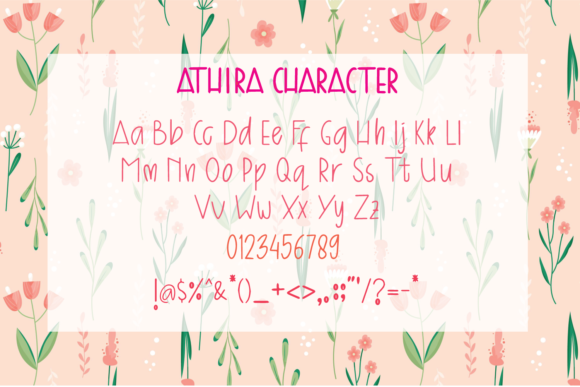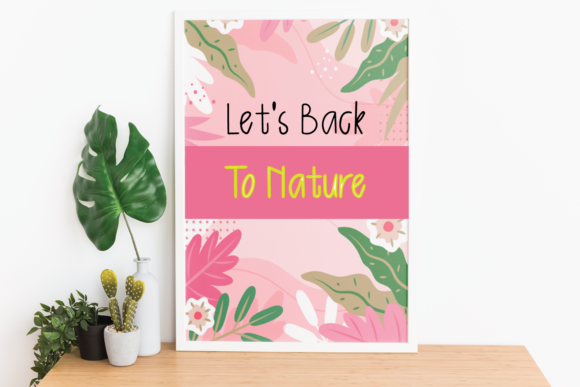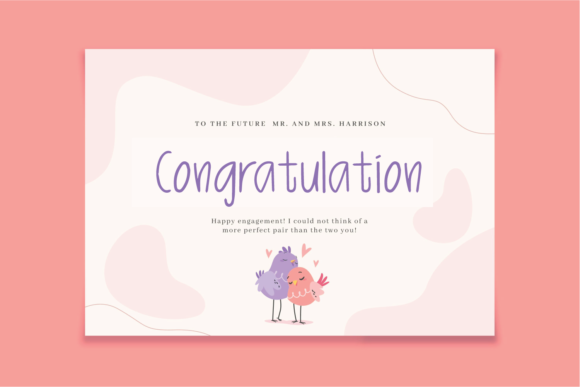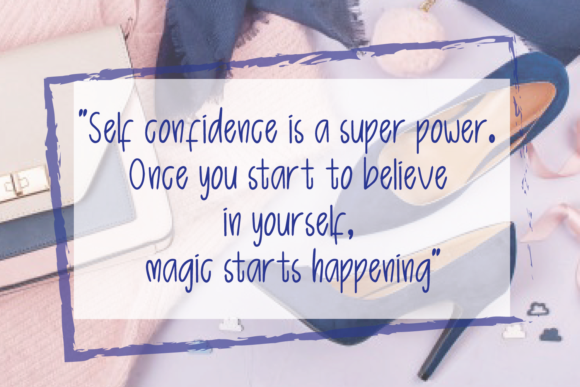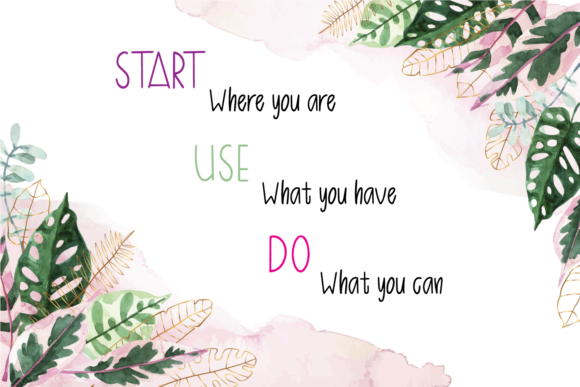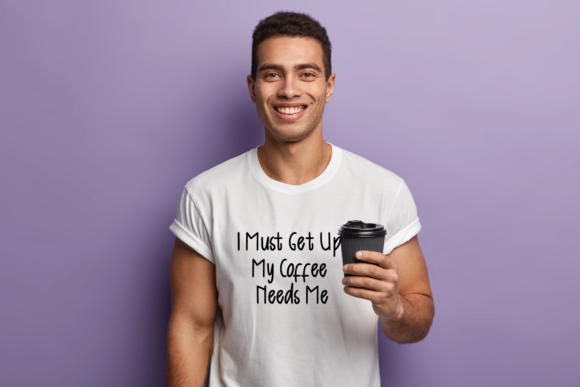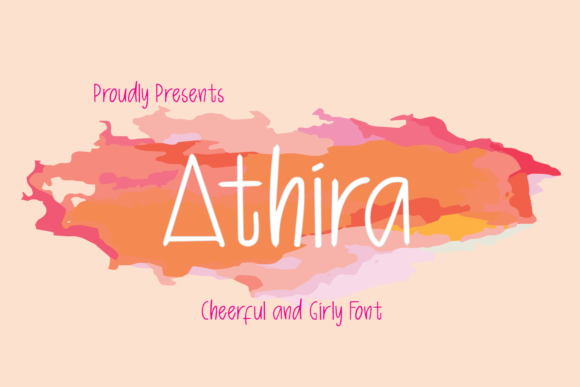
Athira Font: The Perfect Choice for Fashion Branding and Editorial Designs
Are you a designer or crafter looking for a unique and elegant font to elevate your fashion branding or editorial designs? Look no further than Athira Font! This beautiful, handwritten font is defined by its dainty curves and delicate features, making it the perfect choice for adding a touch of sophistication and style to your projects.
What is Athira Font?
Athira Font is a thin, delicate, and cheerful handwritten font that is sure to capture the attention of your audience. Its elegant and refined features make it an excellent choice for fashion branding, editorial designs, and any other project that requires a touch of luxury and sophistication. With its unique and distinctive style, Athira Font is sure to set your designs apart from the rest.
Key Features of Athira Font
Athira Font boasts a range of key features that make it the perfect choice for designers and crafters. Some of its standout features include:
- Thin and delicate: Athira Font is characterized by its thin and delicate lines, which give it a light and airy feel.
- Cheerful and elegant: Despite its delicate features, Athira Font has a cheerful and upbeat vibe that makes it perfect for designs that require a touch of personality.
- Dainty curves: The font’s dainty curves add a touch of femininity and sophistication, making it perfect for fashion branding and editorial designs.
- Handwritten style: Athira Font has a beautiful, handwritten style that gives it a personal and unique touch.
Why Choose Athira Font?
So why choose Athira Font for your next project? Here are just a few reasons why this beautiful font is the perfect choice:
- Perfect for fashion branding: Athira Font’s elegant and refined features make it an excellent choice for fashion branding, from logo design to packaging and marketing materials.
- Ideal for editorial designs: The font’s cheerful and upbeat vibe makes it perfect for editorial designs, such as magazine covers, articles, and blog posts.
- Adds a touch of sophistication: Athira Font’s delicate features and dainty curves add a touch of sophistication and luxury to any design.
- Easy to read: Despite its thin and delicate lines, Athira Font is easy to read, making it perfect for body text and headlines.
How to Use Athira Font
Using Athira Font in your designs is easy! Here are a few tips to get you started:
- Pair it with bold fonts: Pair Athira Font with bold fonts to create a striking contrast and add visual interest to your designs.
- Use it for headlines and body text: Athira Font is perfect for both headlines and body text, making it a versatile choice for any design project.
- Experiment with colors: Try out different colors and color combinations to find the perfect look for your design.
In conclusion, Athira Font is a beautiful and elegant handwritten font that is perfect for fashion branding and editorial designs. Its delicate features, dainty curves, and cheerful vibe make it a standout choice for designers and crafters looking to add a touch of sophistication and style to their projects. With its ease of use and versatility, Athira Font is sure to become a favorite in your design toolkit.